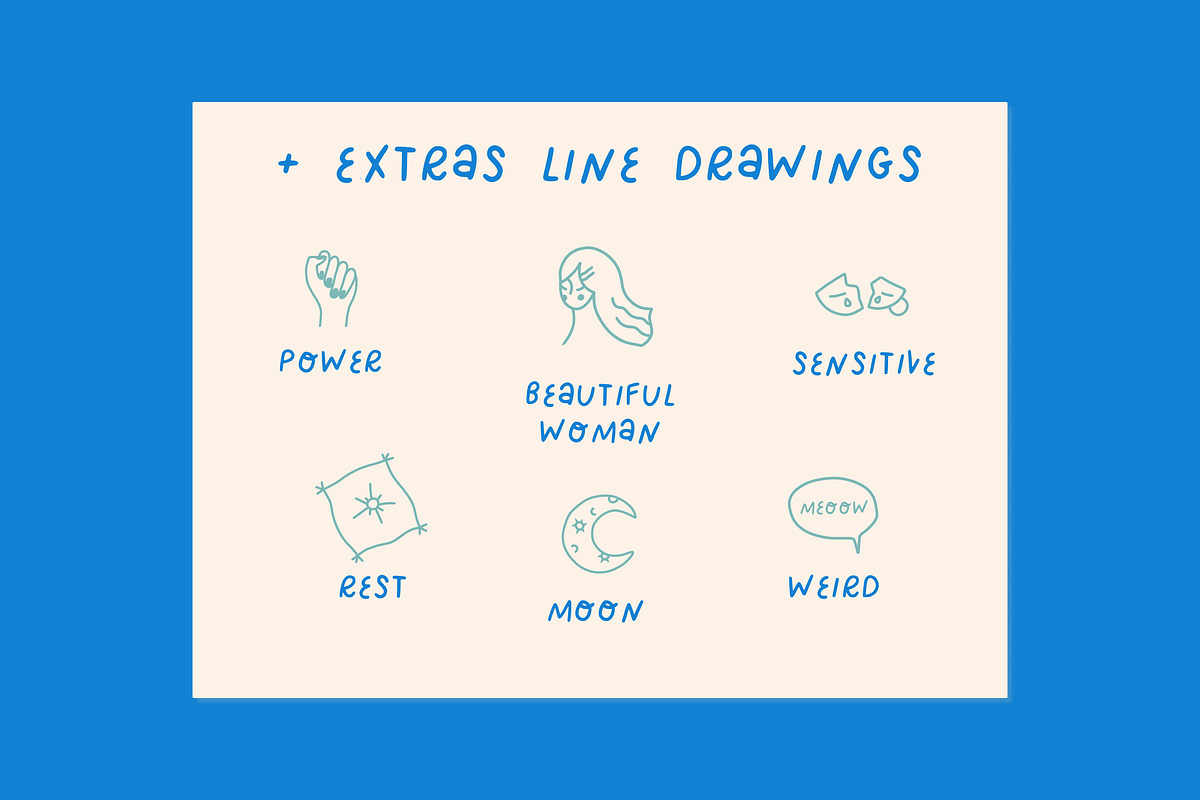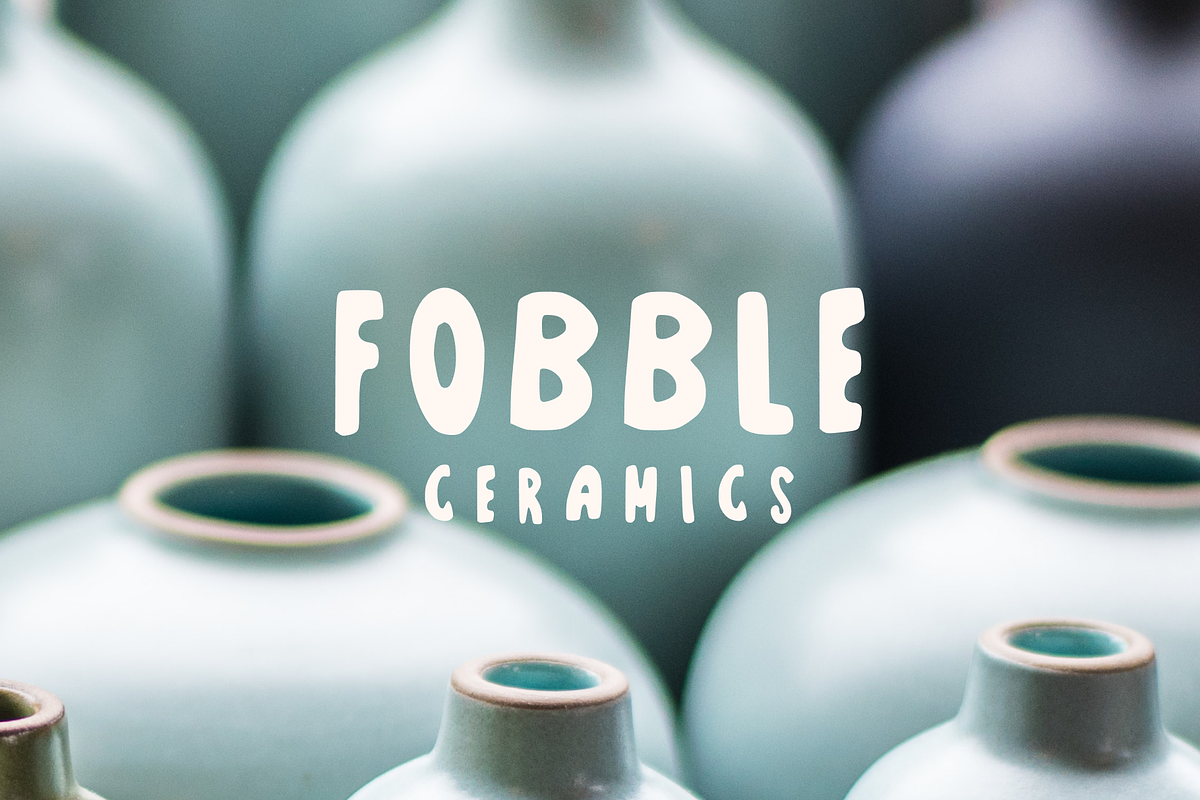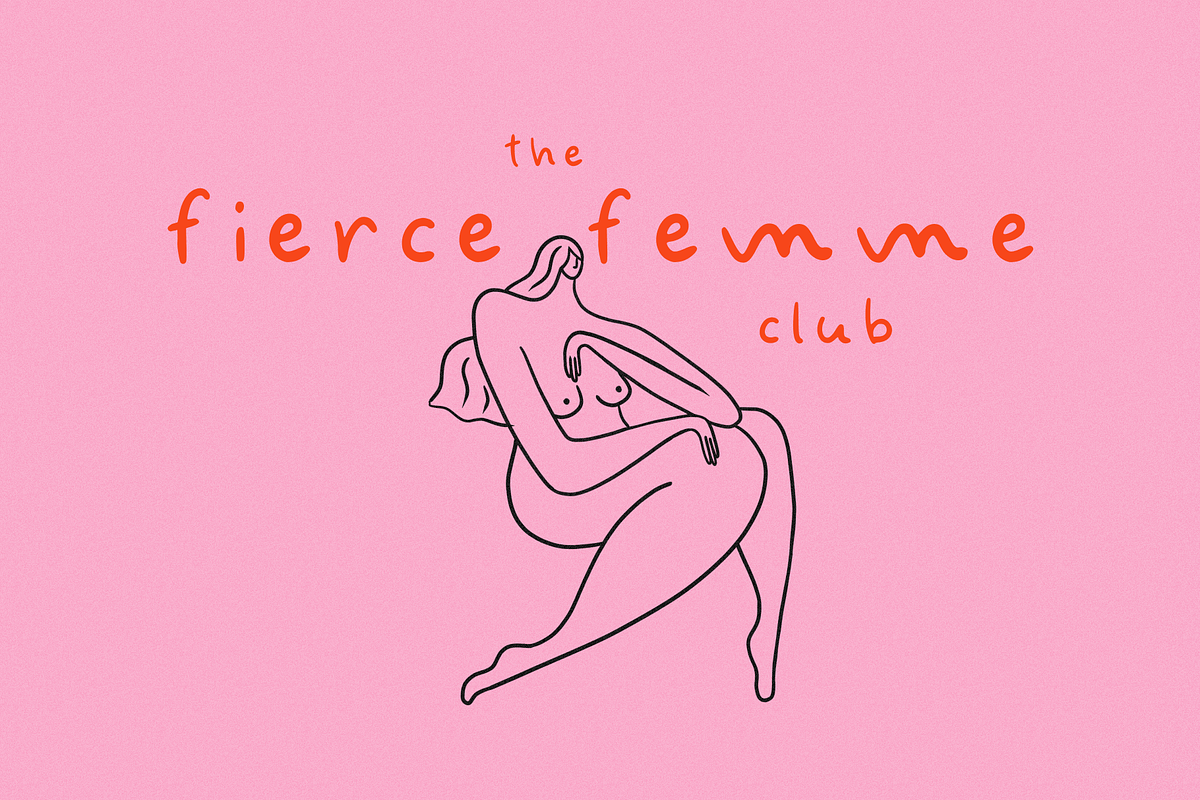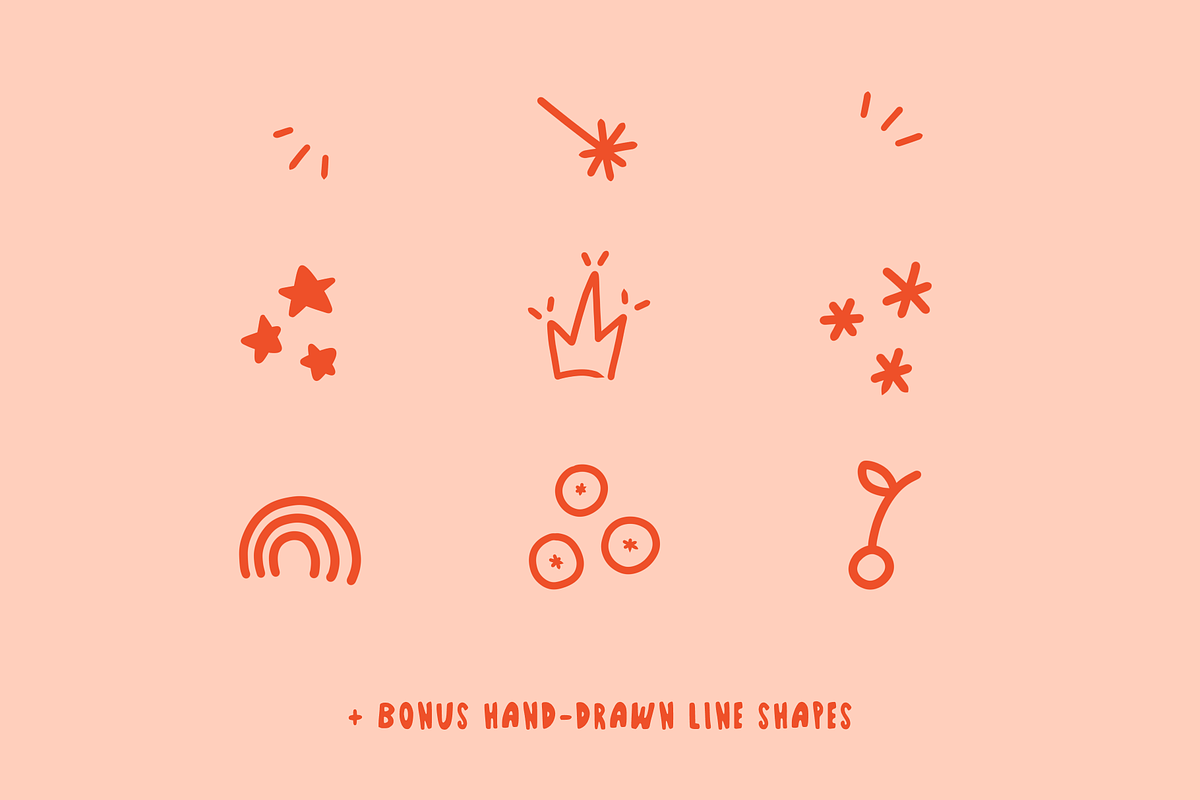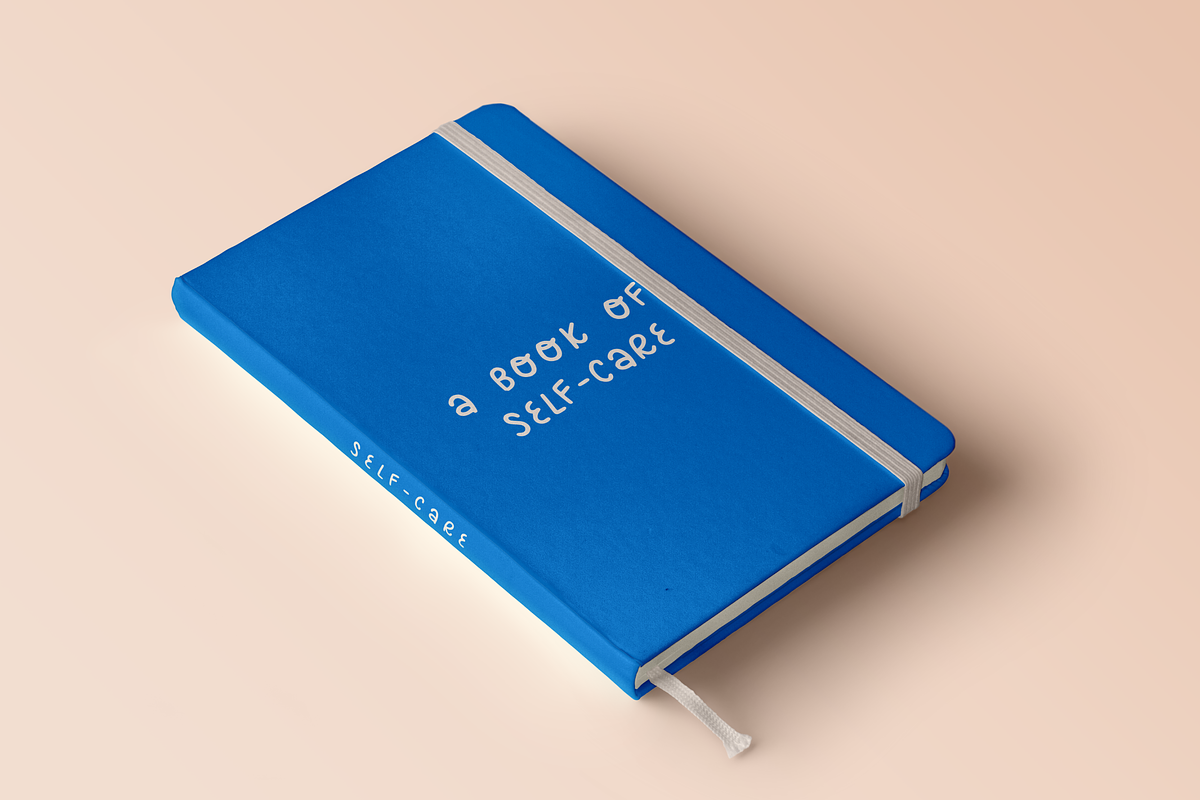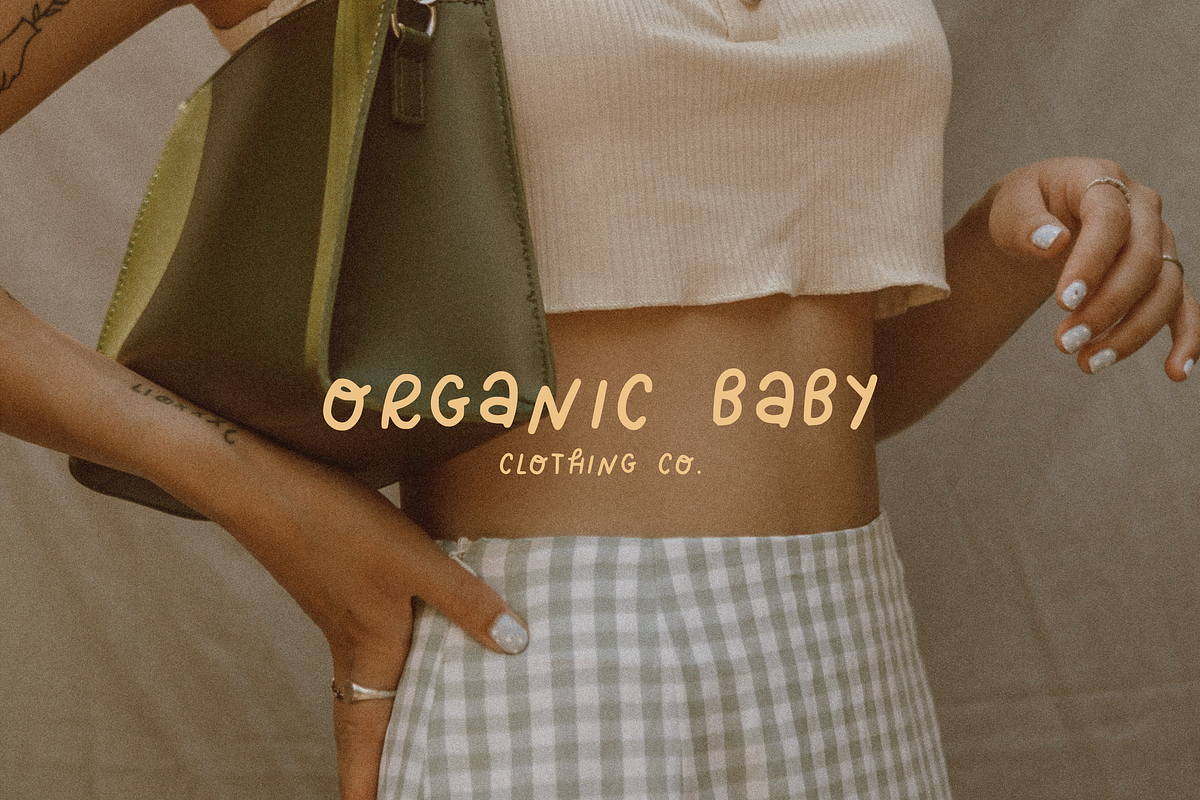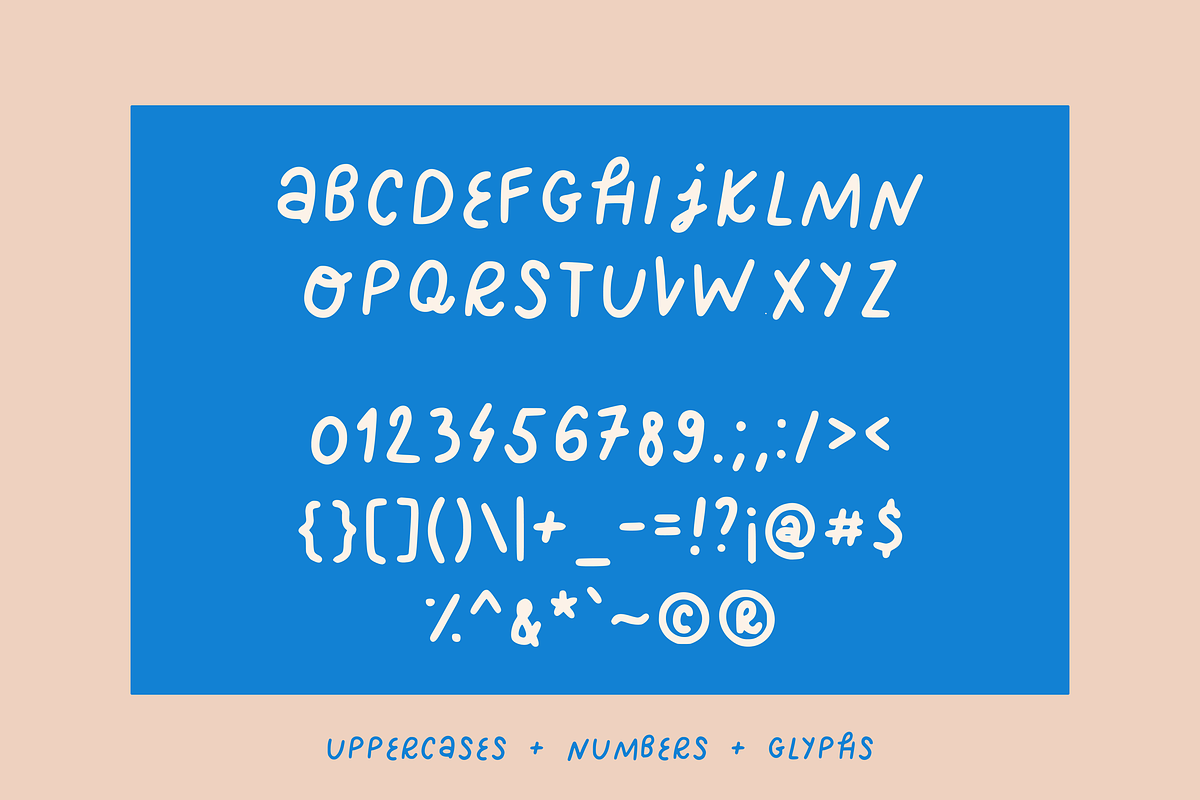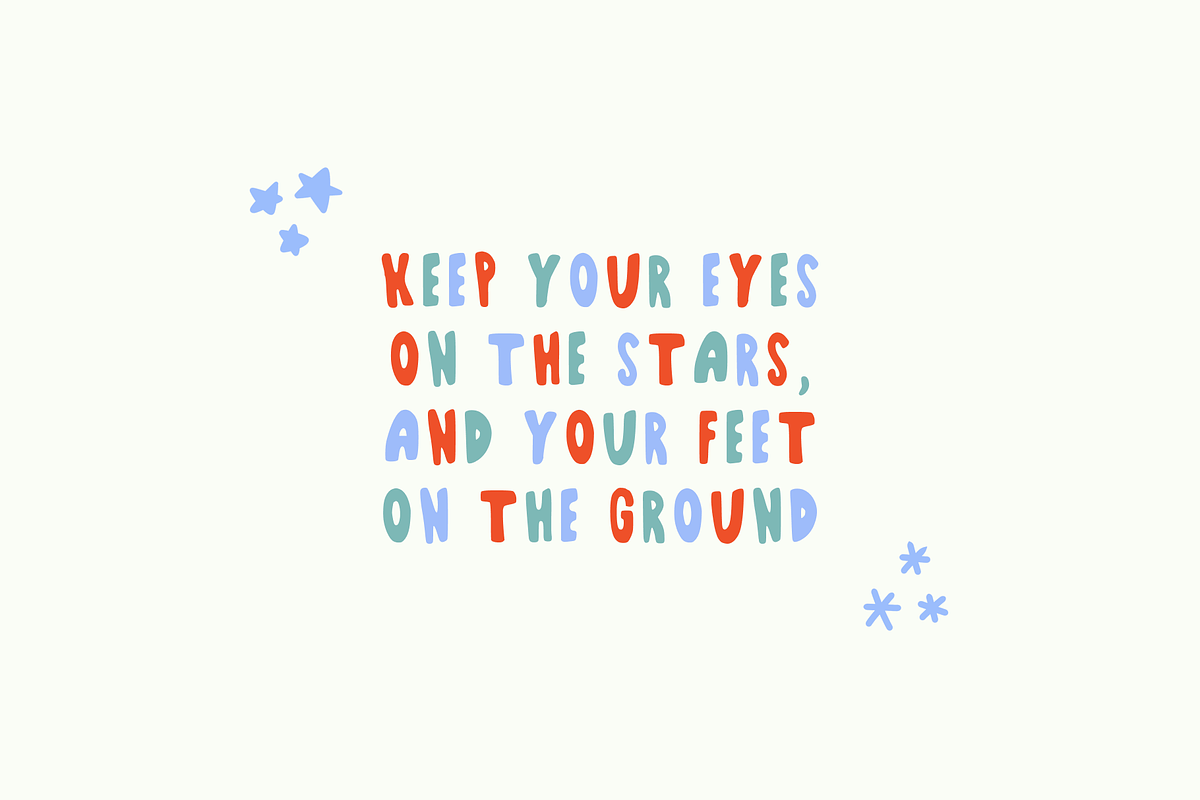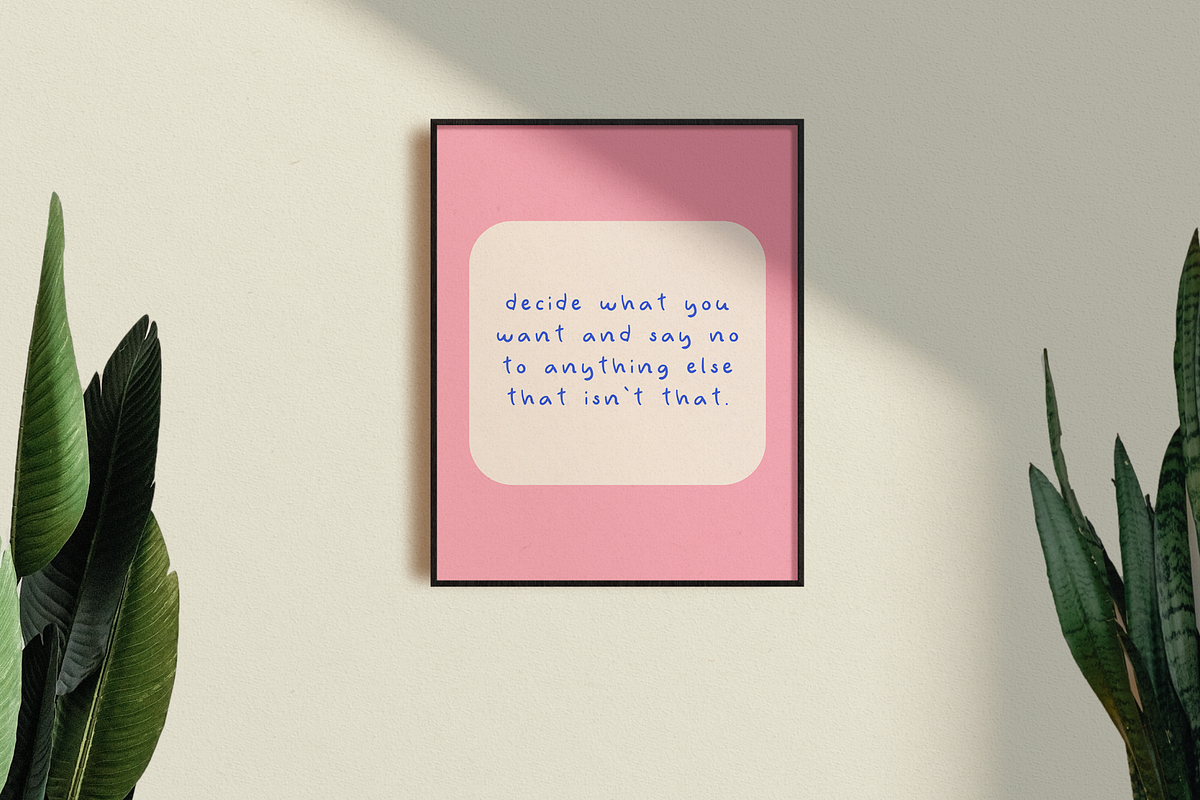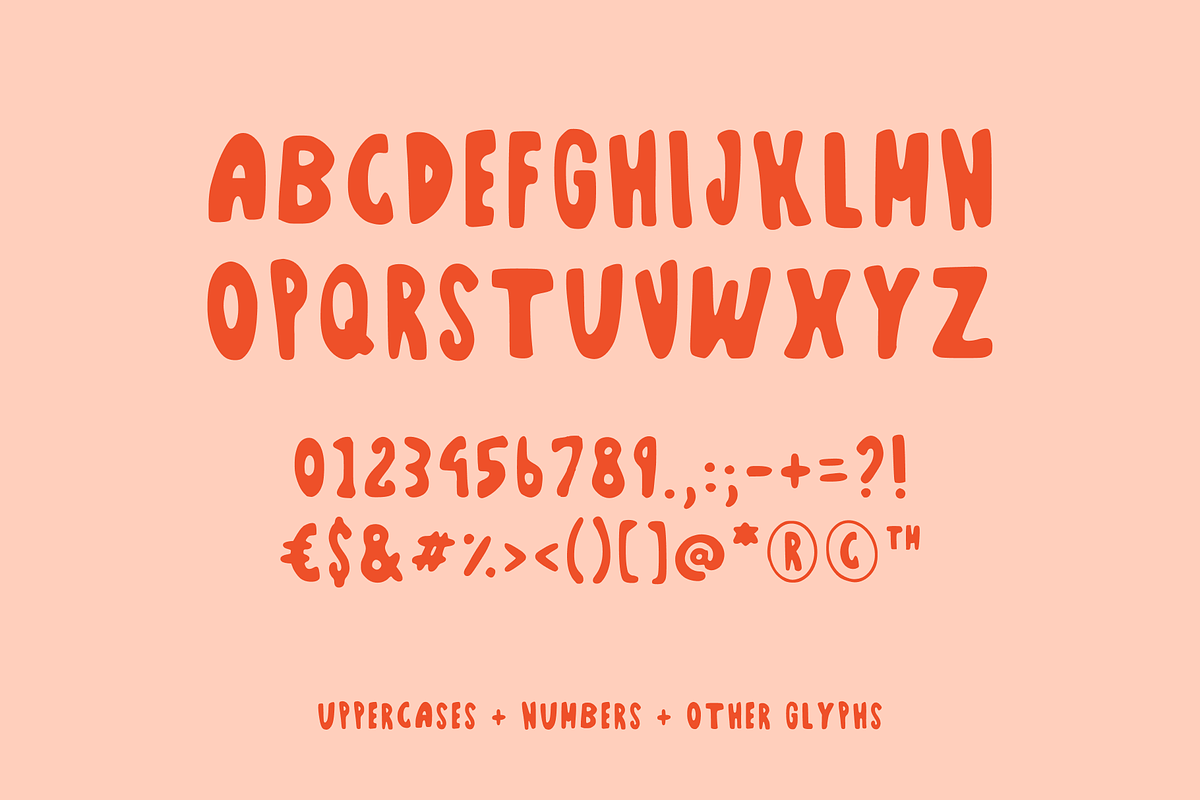
The Cute Handwritten Font Bundle
The cute handwritten font bundle!
Save 60% with this hand-drawn type bundle of 4 fonts:
They are perfect for:
- Quotes
- Illustrations
- Branding
- Greeting cards
- Logo
- Pinterest & Instagram
They include:
- +BONUS 15 line drawings